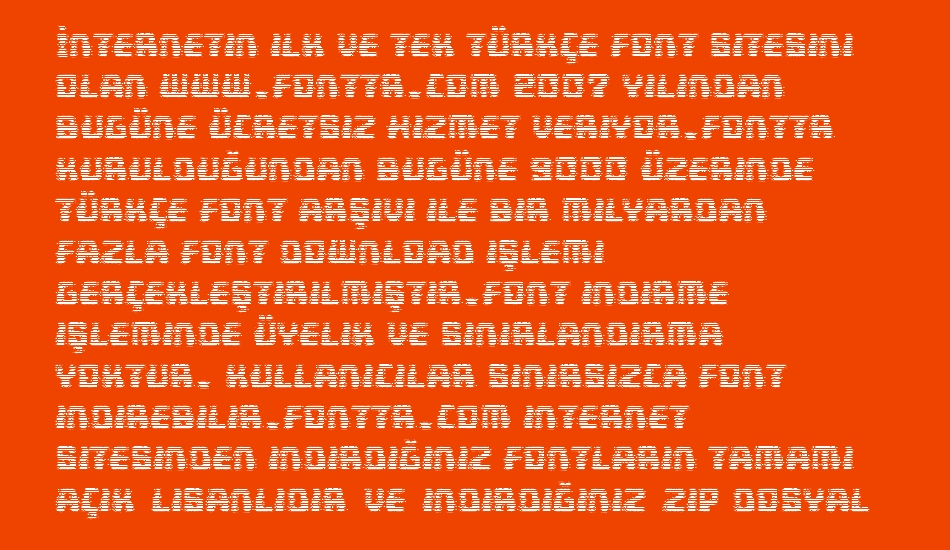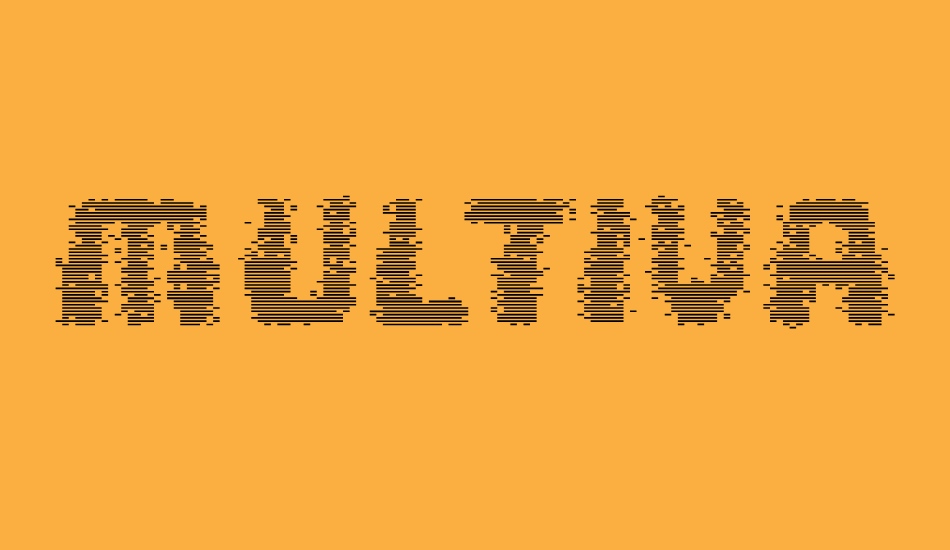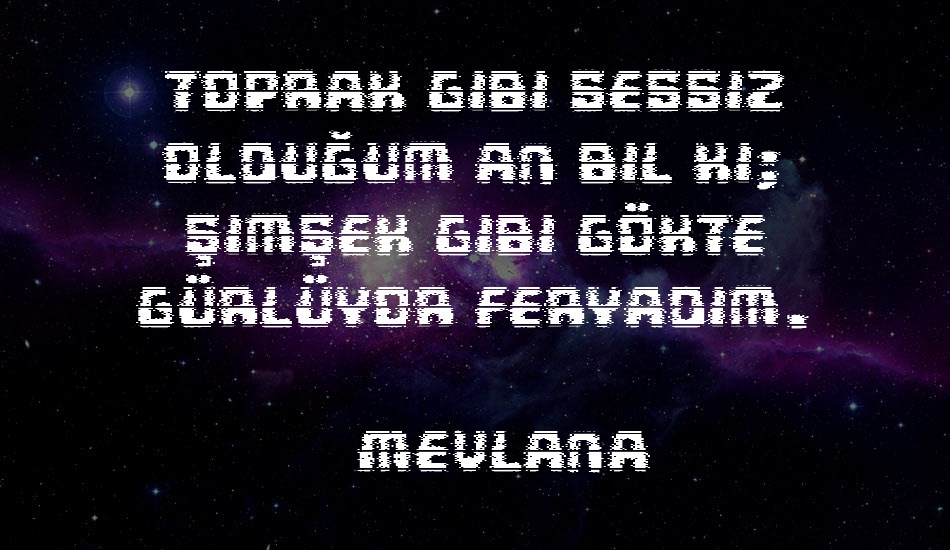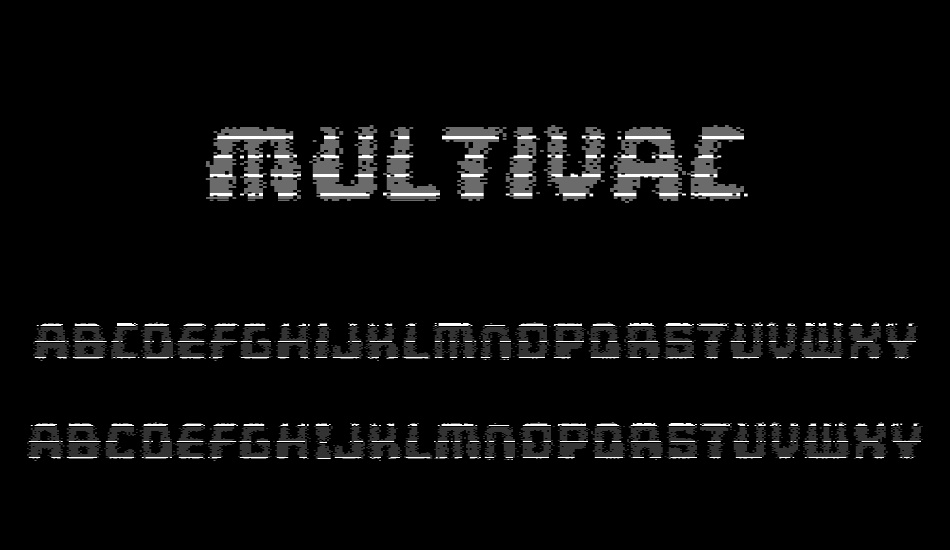
Multivac font
MULTIVAC
The forgotten computer sealed into a mountain. It tries to communicate but something is jamming the transmissions...
Don't forget about the different forms (c, i, m, s, w) in the lower case.
Created 2016 by Andrew Young, Disaster Fonts.